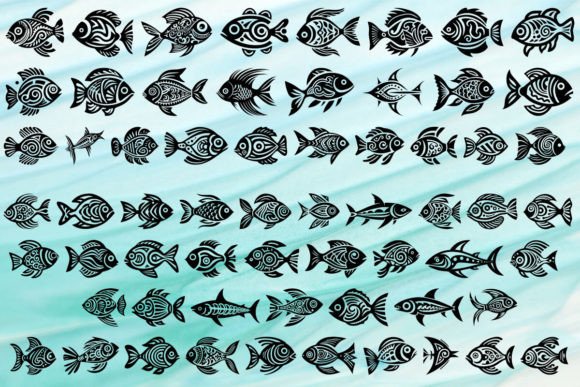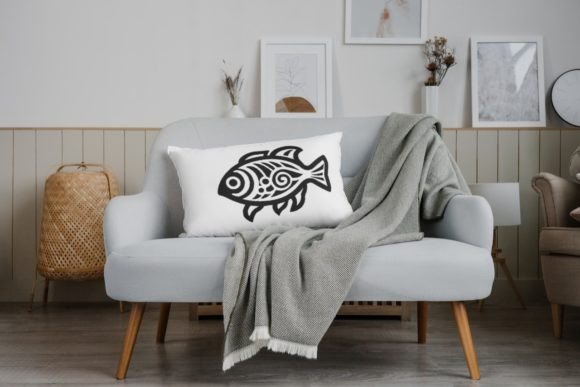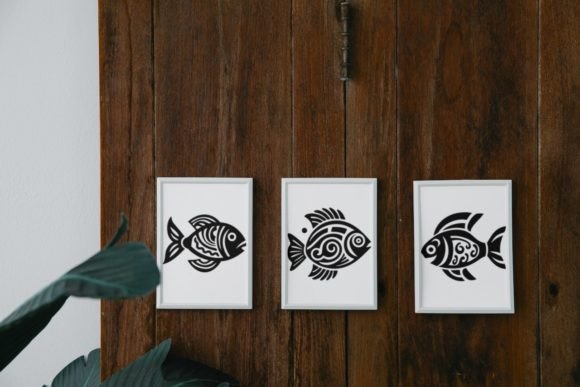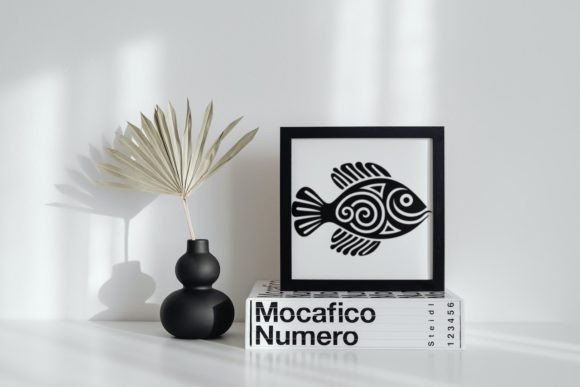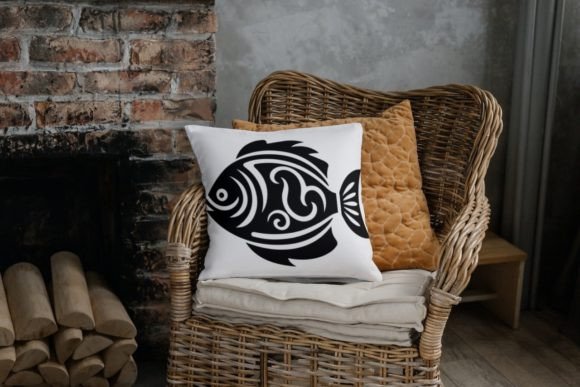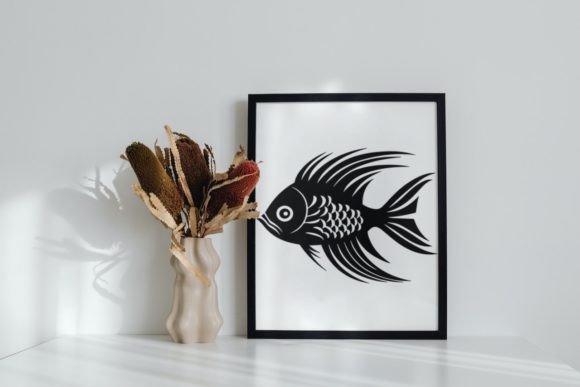
Introduction to Fish Charm Font
Dive into creativity with 26 captivating uppercase letters, 26 whimsical lowercase letters, and delightful numbers 0-9.
These Dingbats Fonts are a sea of inspiration, allowing you to add a touch of aquatic charm to your designs Let your imagination swim free .